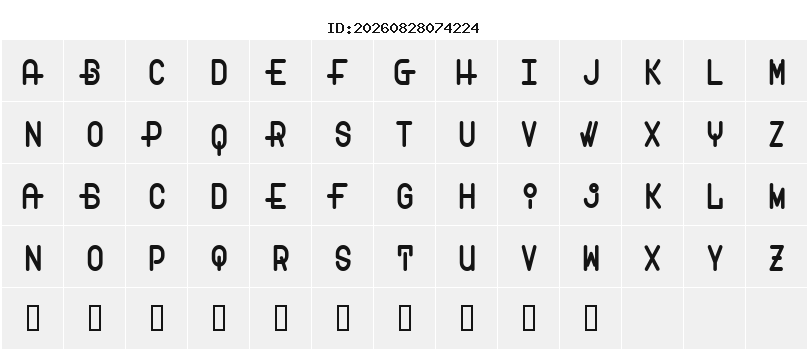
Transam Preview
• Font Name: Transam
• Full Font Name: Transam
About Transam.ttf
Transam.ttf is a modern, elegant sans-serif font designed for ultimate readability and visual harmony. Perfect for branding, headlines, web design, and print materials.